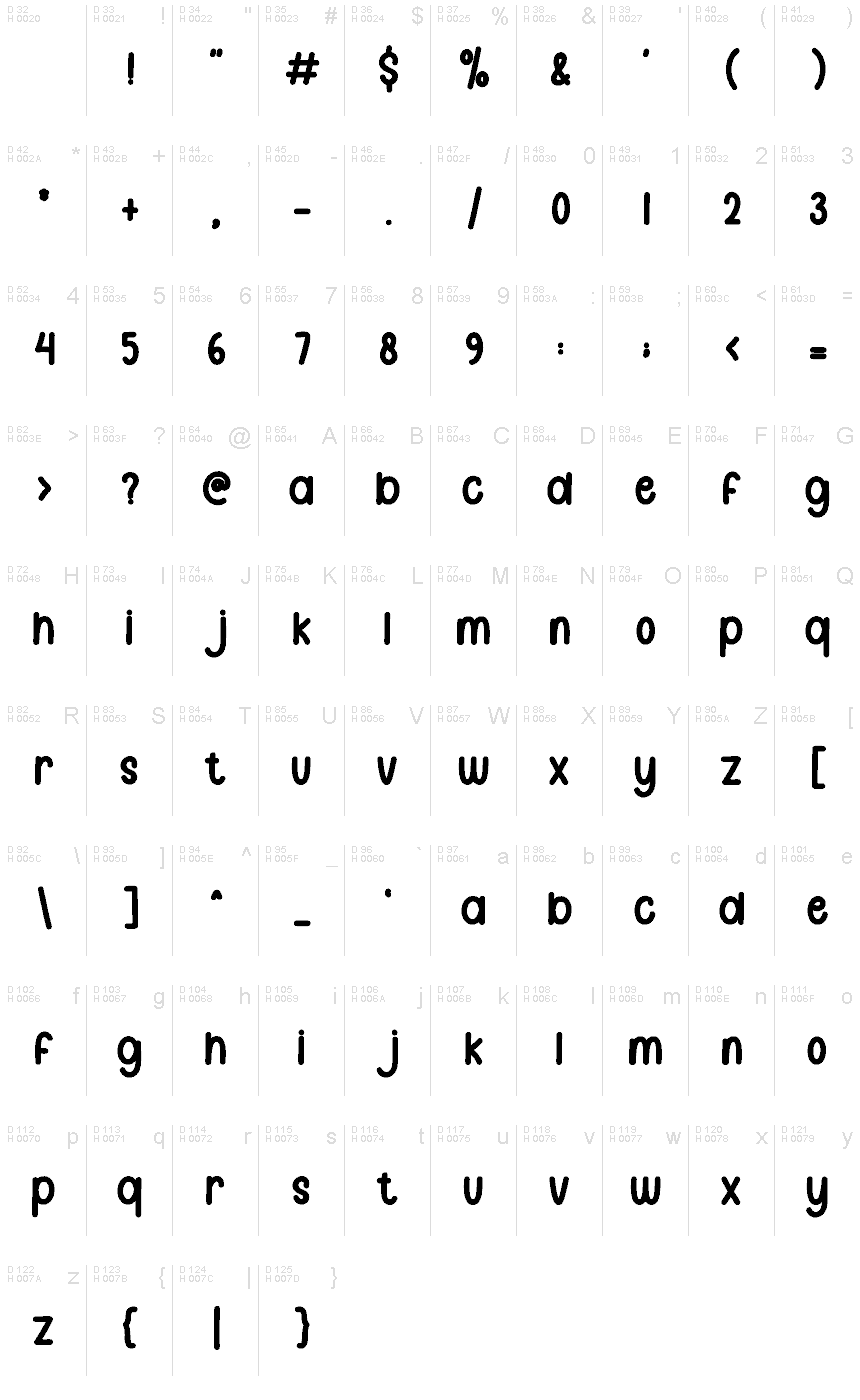
Fluffy Cat
Fluffy Cat font is the playful, approachable creation of Andi Moz. This handwritten typeface is light-hearted and casual and puts on display its smooth, round shapes in a modern fashion. Fluffy cat can serve as a great inspiration source for projects that are fun and want to communicate friendliness.
Use Fluffy Cat freely in branding designs, logotypes, packaging designs for treats or snacks, social media posts about pets or kids products advertising. It would look lovely in greeting cards or invitations whether printed or digital versions.